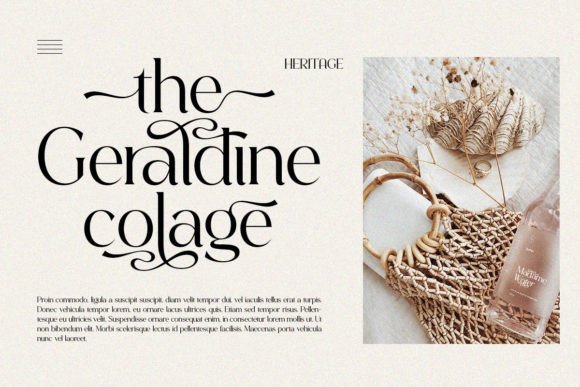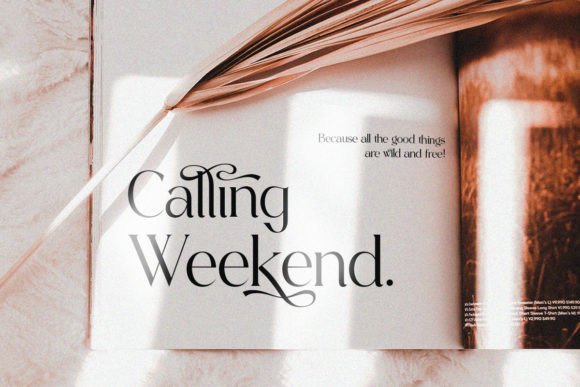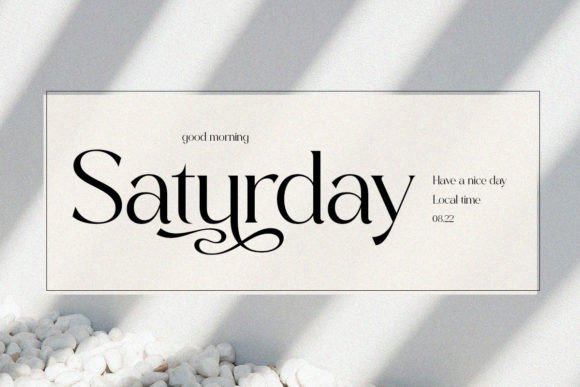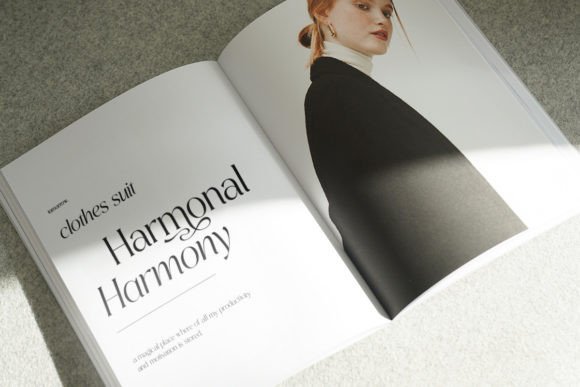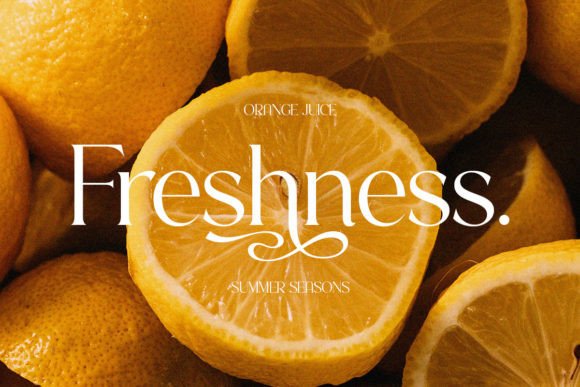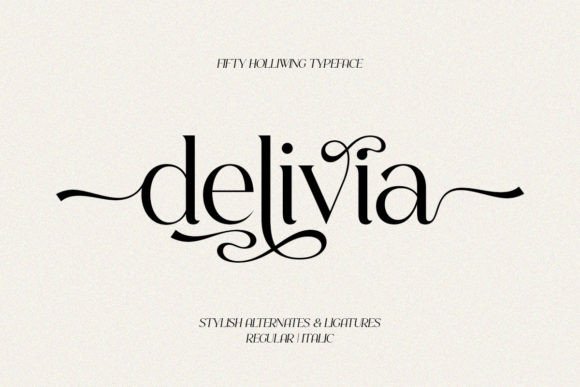
Fifty Holliwing Font: Elevate Your Designs with a Touch of Eighties Elegance
In the world of typography, fonts play a crucial role in defining the aesthetic and tone of a design project. For designers and crafters seeking a typeface that exudes sophistication and high-end style, Fifty Holliwing Font is an excellent choice. Inspired by the classy magazines of the eighties, this modern classic serif font brings a touch of nostalgia and elegance to any design.
The Inspiration Behind Fifty Holliwing Font
Fifty Holliwing Font draws its inspiration from the iconic magazines of the eighties, known for their luxurious and refined typography. The font’s creator aimed to capture the essence of this era’s high-end design, infusing Fifty Holliwing with soft curves and intricate details that evoke a sense of sophistication and glamour.
Key Features of Fifty Holliwing Font
So, what makes Fifty Holliwing Font stand out from other typefaces? Here are some of its key features:
- Modern Classic Serif Font: Fifty Holliwing is a serif font with a modern twist, making it perfect for designs that require a touch of classic elegance.
- Soft Curves and Beautiful Details: The font’s soft curves and intricate details give it a luxurious feel, ideal for high-end designs.
Use Cases for Fifty Holliwing Font
Fifty Holliwing Font is versatile and can be used in a variety of design projects, including:
- Magazine and Editorial Design: The font’s inspiration from eighties magazines makes it a natural fit for editorial designs that require a touch of sophistication.
- Branding and Logo Design: Fifty Holliwing’s elegant and refined style makes it suitable for luxury brands and high-end logos.
- Packaging Design: The font’s classic and sophisticated feel makes it perfect for packaging designs that require a touch of elegance.
- Digital and Print Materials: Fifty Holliwing Font can be used in a range of digital and print materials, including brochures, flyers, and social media graphics.
Tips for Using Fifty Holliwing Font
To get the most out of Fifty Holliwing Font, here are some tips to keep in mind:
- Pair it with Other Fonts: Experiment with pairing Fifty Holliwing Font with other fonts to create a unique and visually appealing typography.
- Use it for Headings and Titles: The font’s elegant style makes it perfect for headings and titles, where you want to make a statement.
- Adjust the Font Size and Style: Experiment with different font sizes and styles to create visual hierarchy and add depth to your design.
Fifty Holliwing Font is a stunning typeface that brings a touch of eighties elegance to any design project. With its soft curves, beautiful details, and PUA encoding, this font is perfect for designers and crafters seeking high-end typography. Whether you’re working on a magazine, branding, or packaging design, Fifty Holliwing Font is an excellent choice. So why not give it a try and elevate your designs to the next level?
- Fifty Holliwing Font is a modern classic serif font inspired by eighties magazines.
- The font features soft curves, beautiful details, and PUA encoding.
- Fifty Holliwing Font is perfect for high-end designs, including magazine, branding, and packaging designs.
- The font can be used in a range of digital and print materials.